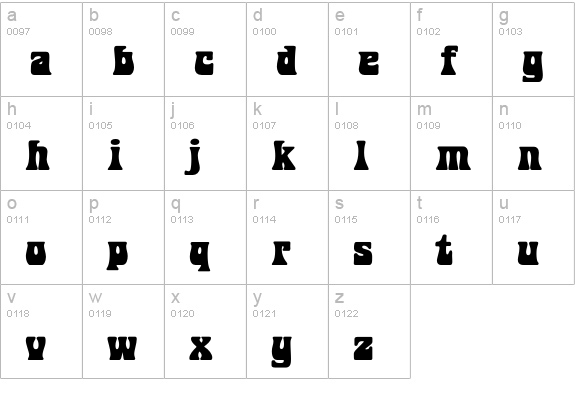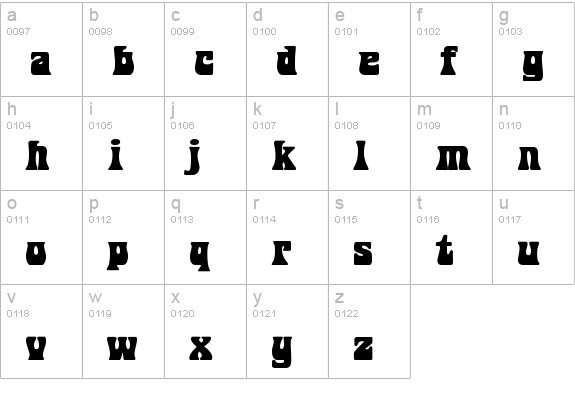
Laurent Font Details
Laurent font is a stunning typeface that combines elegance and modernity in perfect harmony. Its sleek and sophisticated design captures attention and adds a touch of class to any project. With its clean lines and balanced proportions, Laurent font is versatile and can be used for a wide range of purposes, from branding and advertising to editorial design and web graphics. One of the best features of Laurent font is that it is free. Yes, you read that right! This exceptional font is freely available to download at FontsMarket.com. It is a gift to designers and creatives who appreciate the beauty of typography and want to enhance their work with a high-quality font. Downloading Laurent font from FontsMarket.com is quick and easy. Simply visit the website and search for Laurent font in the search bar. Once you find it, click on the download button and voila! You will have access to this amazing font that will elevate your designs to new heights. Whether you are a professional designer or a hobbyist, Laurent font is a must-have in your font library. Its versatility, elegance, and the fact that it is freely available make it an invaluable resource for all your creative endeavors. Don't miss out on this opportunity to enhance your projects with the beauty of Laurent font. Download it today and let your creativity soar!